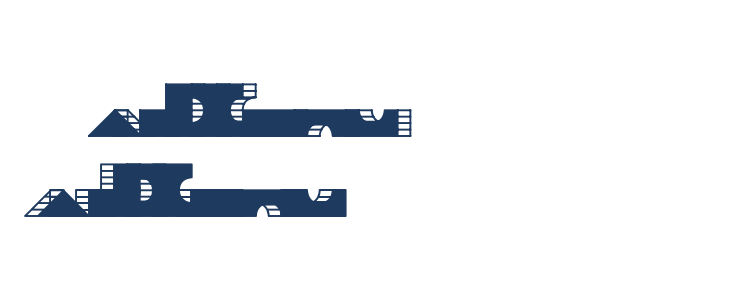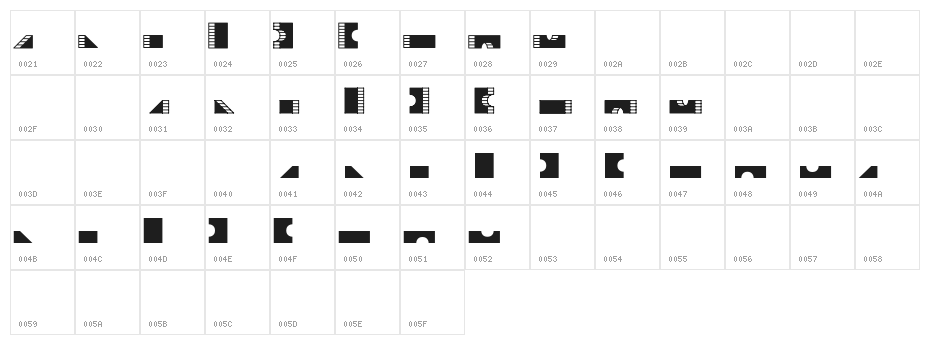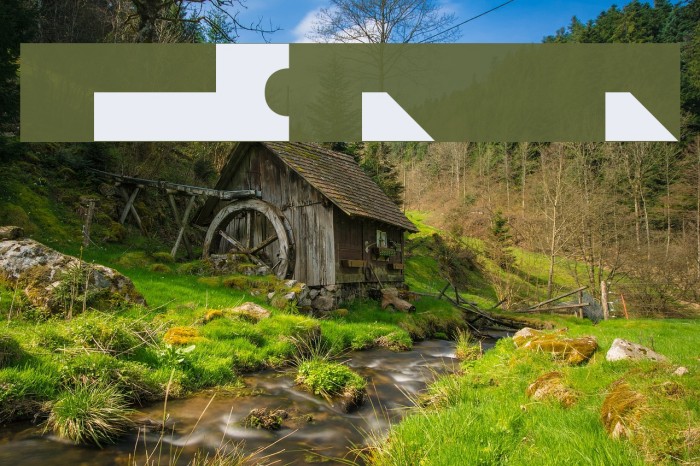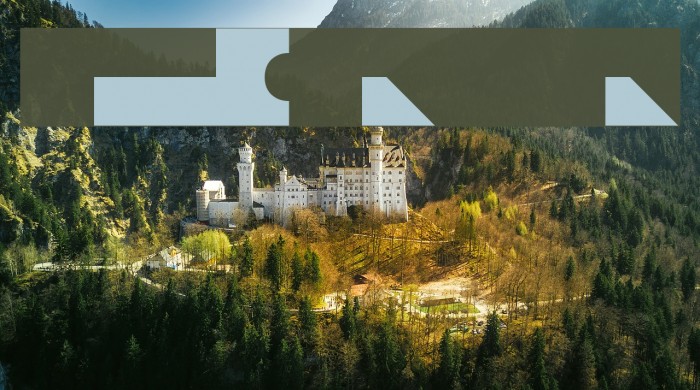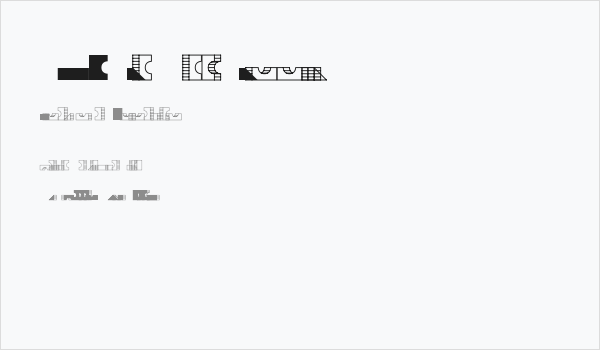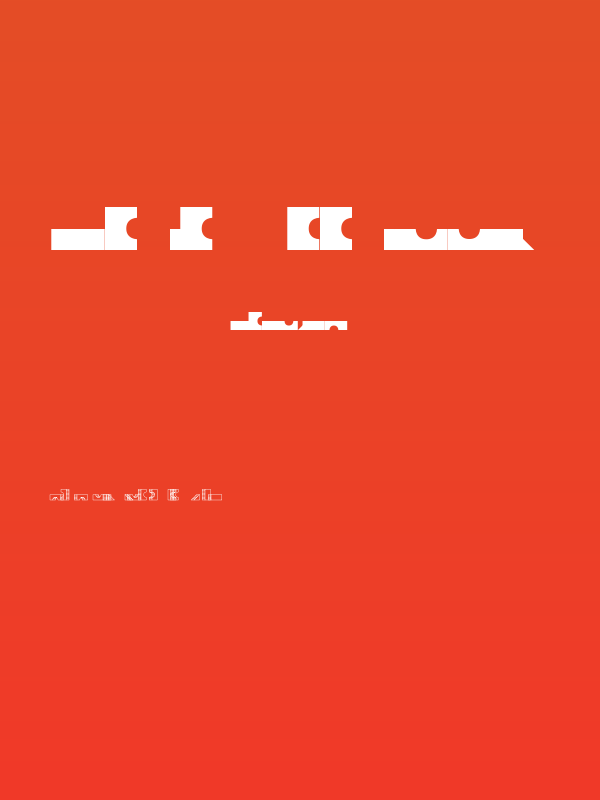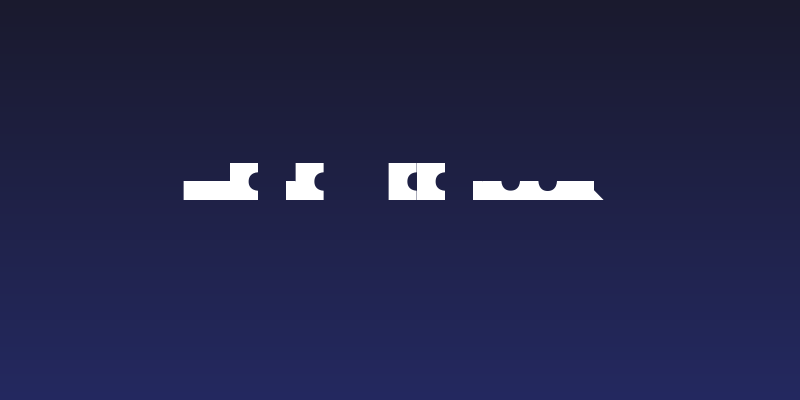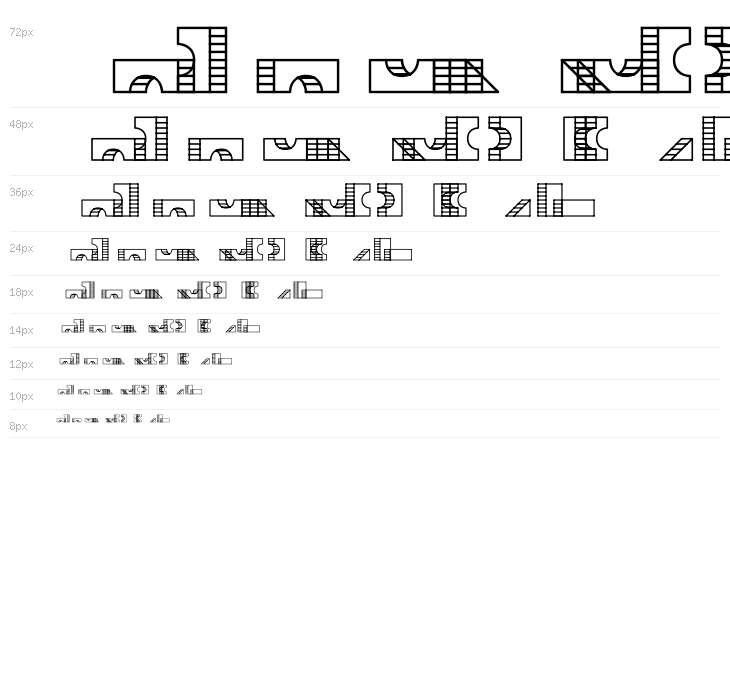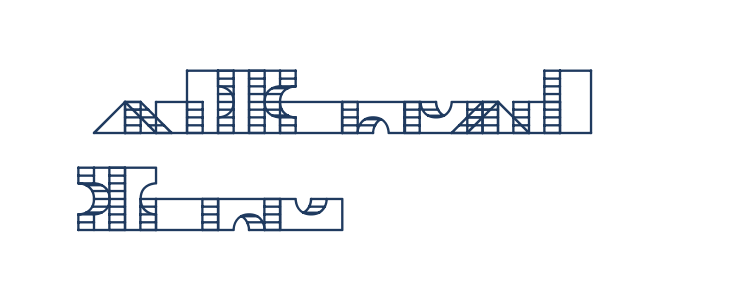
TPF Box of Bricks Font
TPF Box of Bricks Description
This font features a bold and playful design, reminiscent of building blocks or bricks. Each character is constructed with geometric shapes, giving it a unique and eye-catching appearance. The letters are filled with solid black or outlined with a striped pattern, adding a sense of depth and texture. The overall style is modern and decorative, making it suitable for creative projects that require a strong visual impact. The font's distinctive style makes it ideal for use in headlines, posters, or any design that aims to capture attention with its unconventional and artistic flair.
| Use Case | Headlines, Posters, Creative Branding |
| Proposed Projects | Ideal for children's book covers, playful branding, creative posters, and eye-catching headlines. |